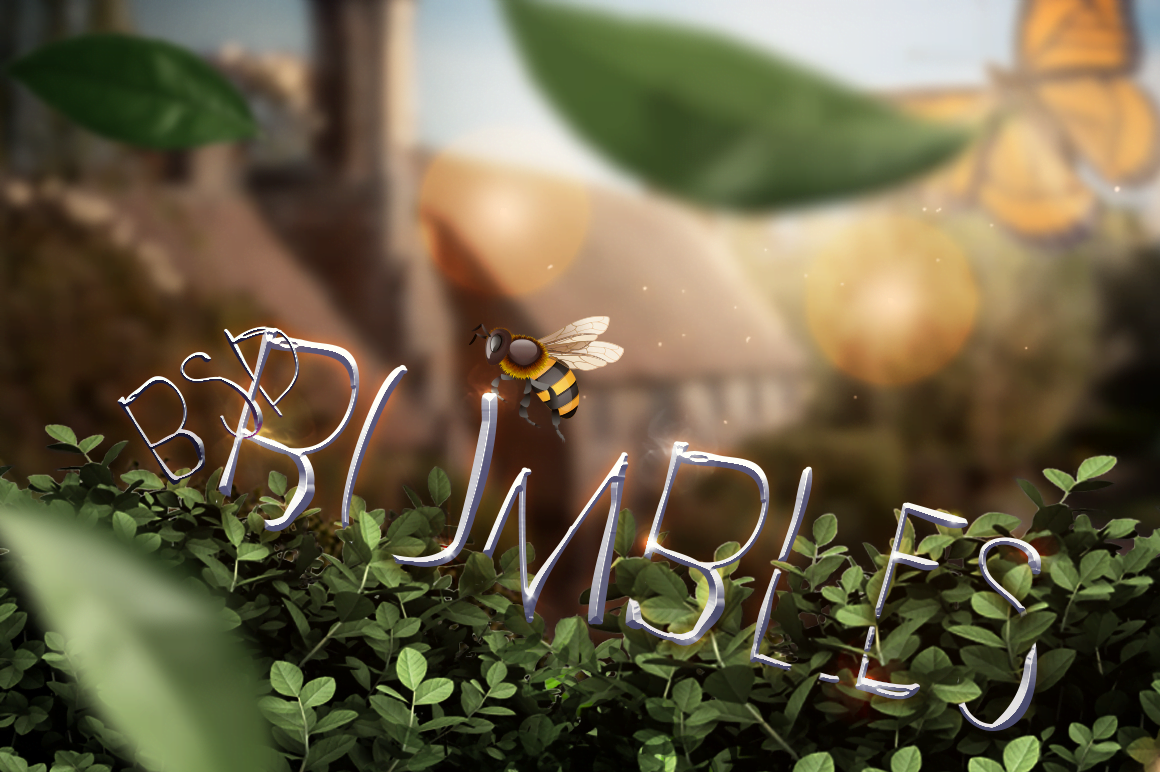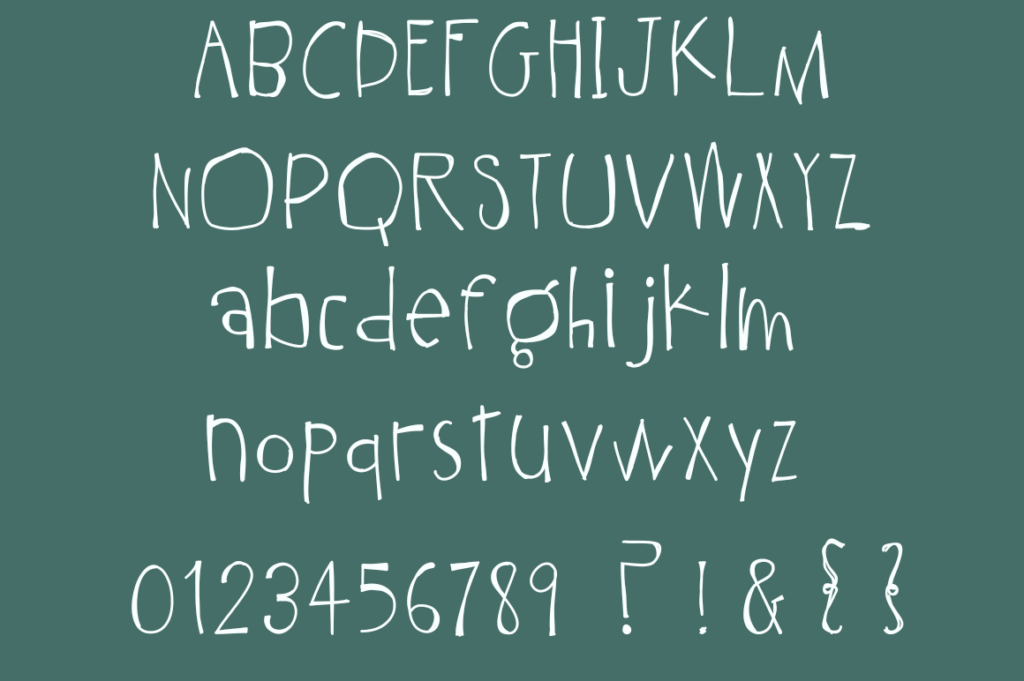
BSD Bumbles
Silly, weird, a little odd. Bumbles is an expressive, quirky decorative .otf. With Caps and littles, a few important extras
Put a little silly in your text 🙂